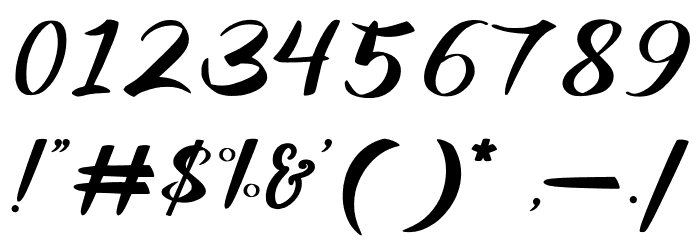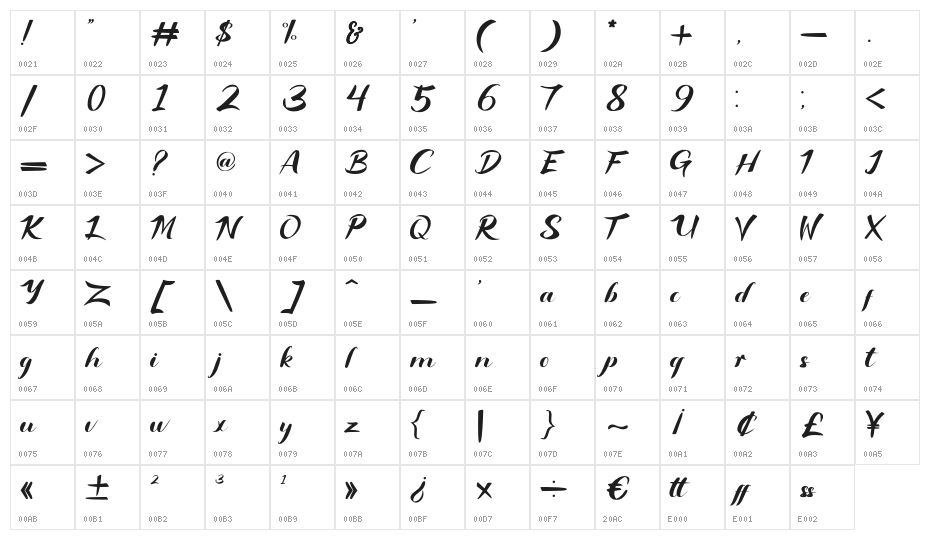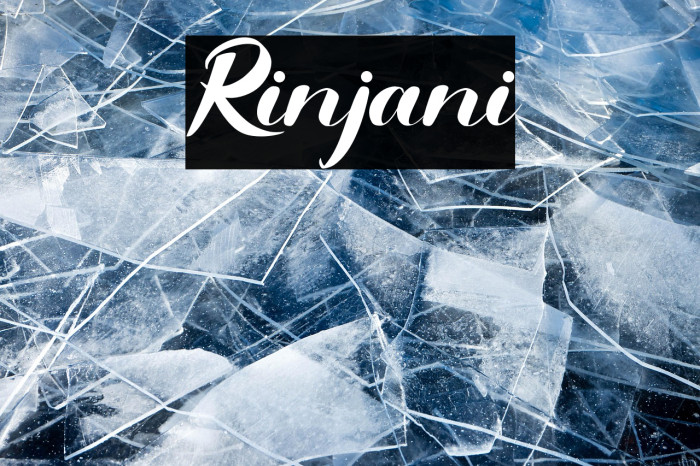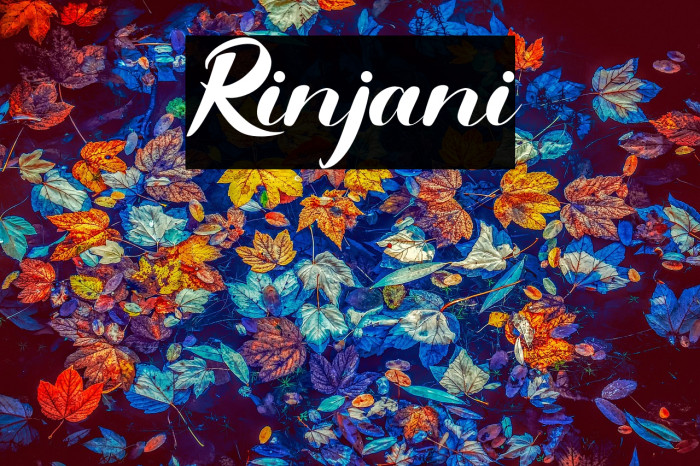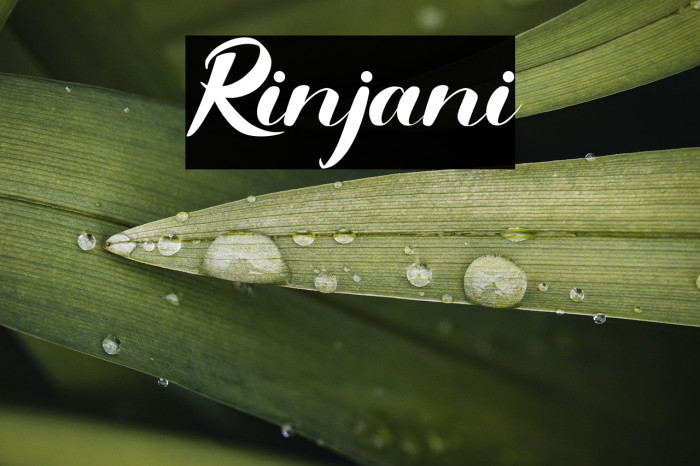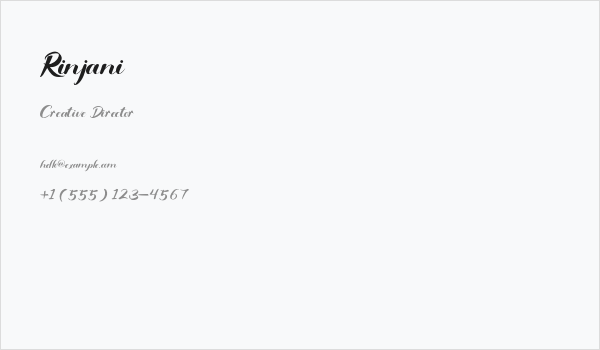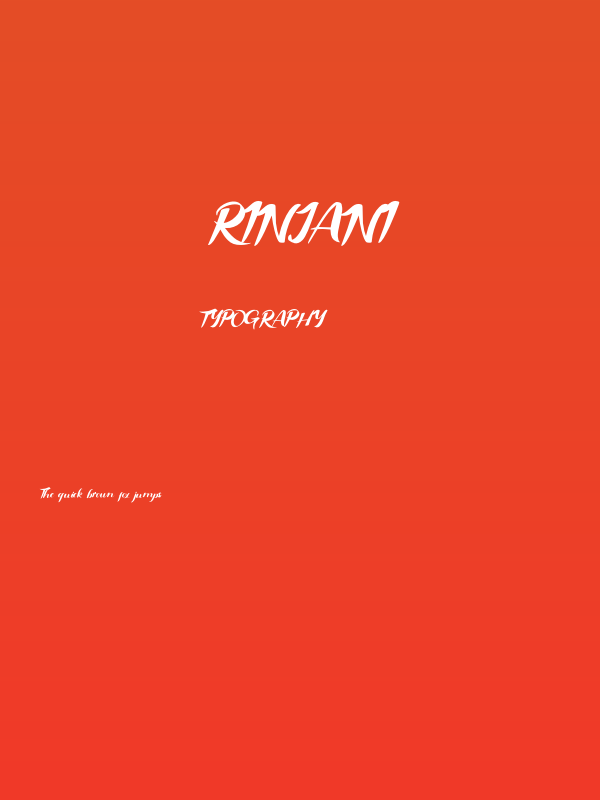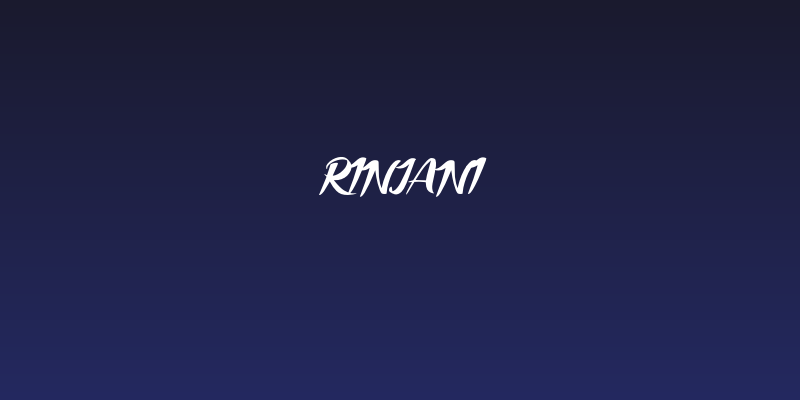
Rinjani Font
Rinjani Description
This font exudes elegance and fluidity, characterized by its script style with sweeping, cursive strokes. The uppercase letters are bold and dynamic, with a slight slant that adds a sense of motion and grace. The lowercase letters maintain a consistent flow, enhancing readability while preserving the artistic flair. Numbers and special characters are crafted with the same attention to detail, ensuring a cohesive look across all elements. The font's high contrast between thick and thin strokes adds to its dramatic appearance, making it ideal for projects that require a touch of sophistication and style.
| Use Case | Logos, Invitations, Headlines |
| Proposed Projects | Ideal for wedding invitations, luxury branding, elegant logos, and formal event materials. |